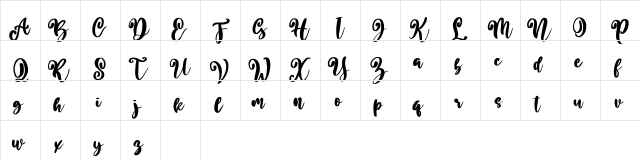
Better Summer Regular
| Designer | Donis Miftahudin |
Design Context for Better Summer Typeface
Better Summer is a composed and adaptable typeface that performs quietly and consistently across a wide range of design contexts.